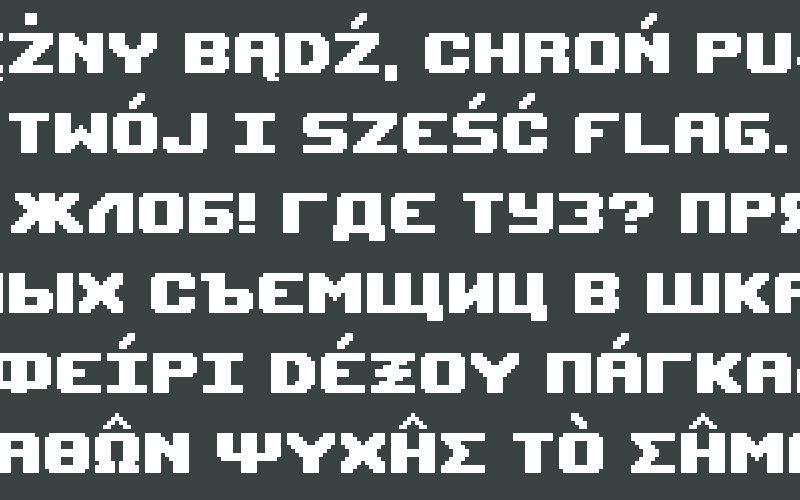
UpheavalPro by Aleksandr Savenkov is a free heavy pixel font with broad capitals and a forceful arcade-era profile. Deep notches, squared openings, and occasional narrow cuts give the lettering a battered, mechanical edge.
It can move between game title screens and music merchandise because its dense shapes read like both digital hardware and a rough industrial mark. Posters also suit its blunt silhouette. The likely audience is designers working with retro games, electronic music, or tech-themed events.
Extended version of Upheaval by Brian Kent. This version includes Cyrillic, Greek, Extended Cyrillic, Polytonic Greek, and Hebrew. Permission was obtained from Brian Kent.
Upheaval Pro
Aleksandr Savenkov
Originally created by Brian Kent